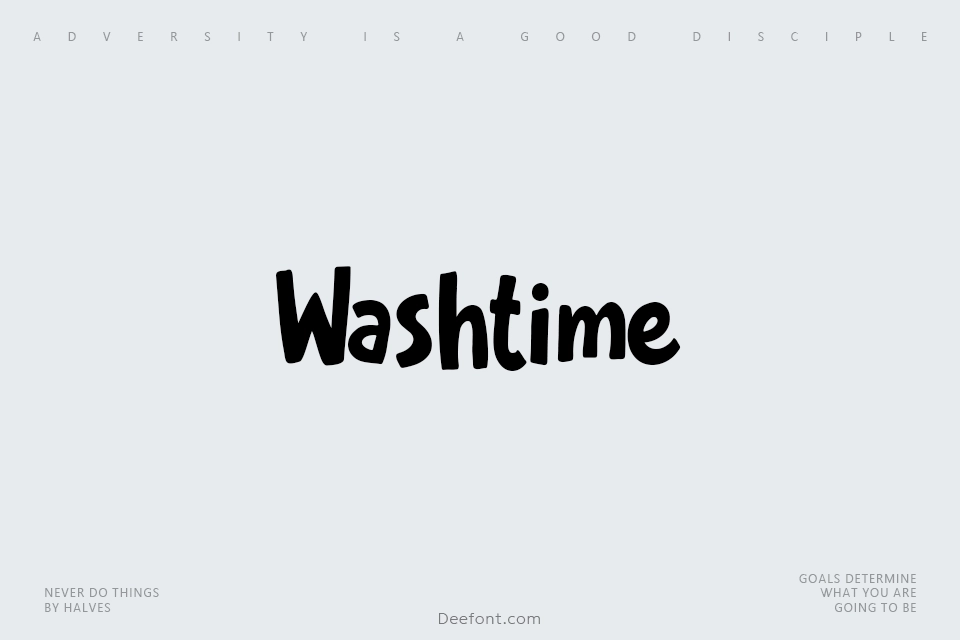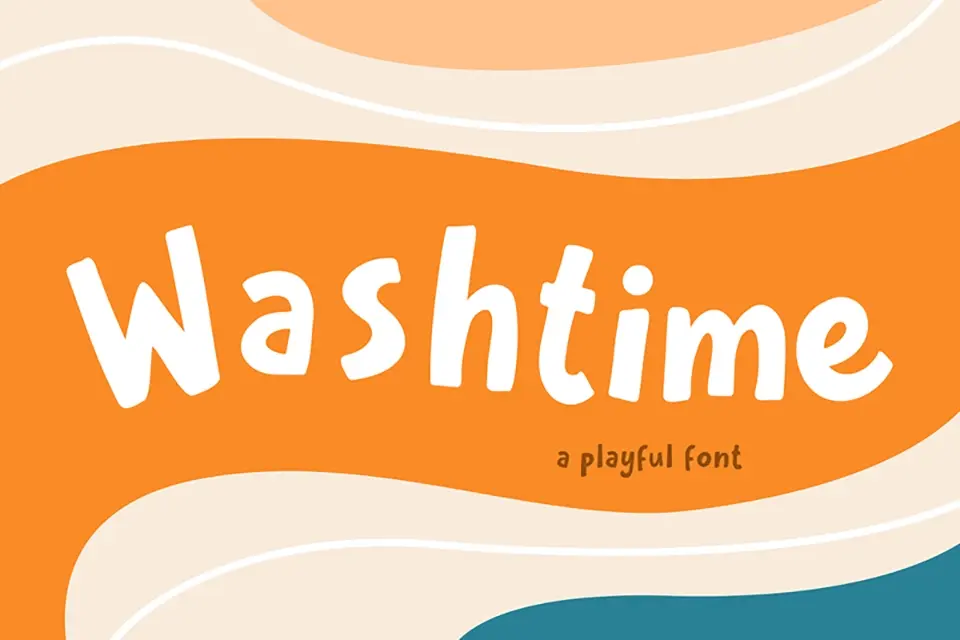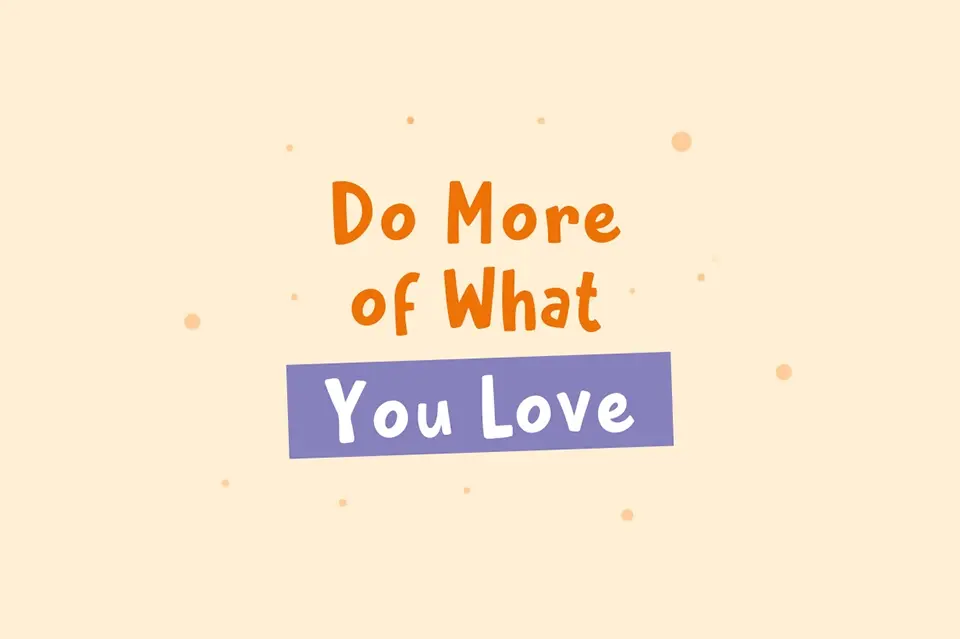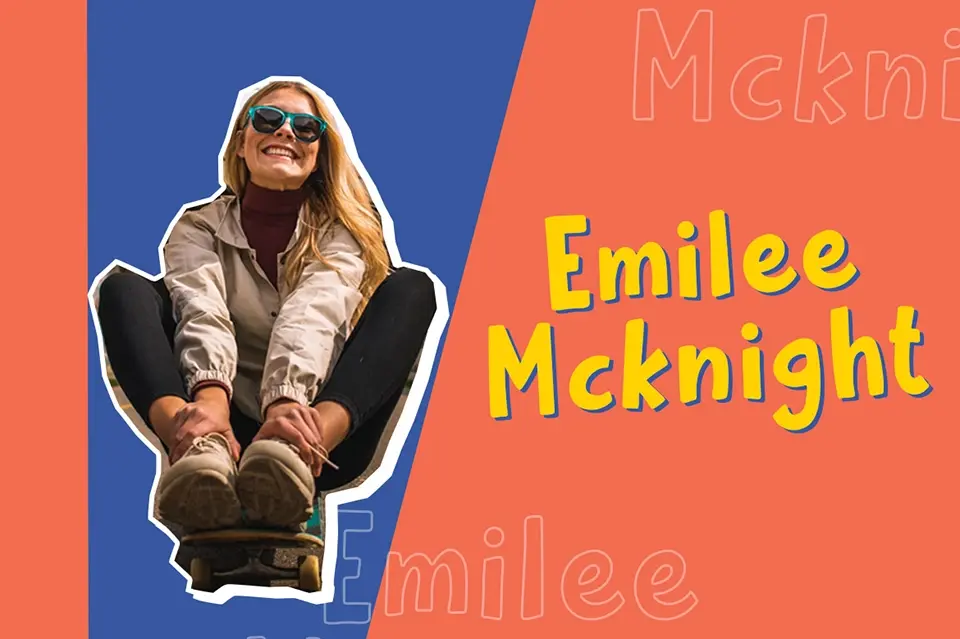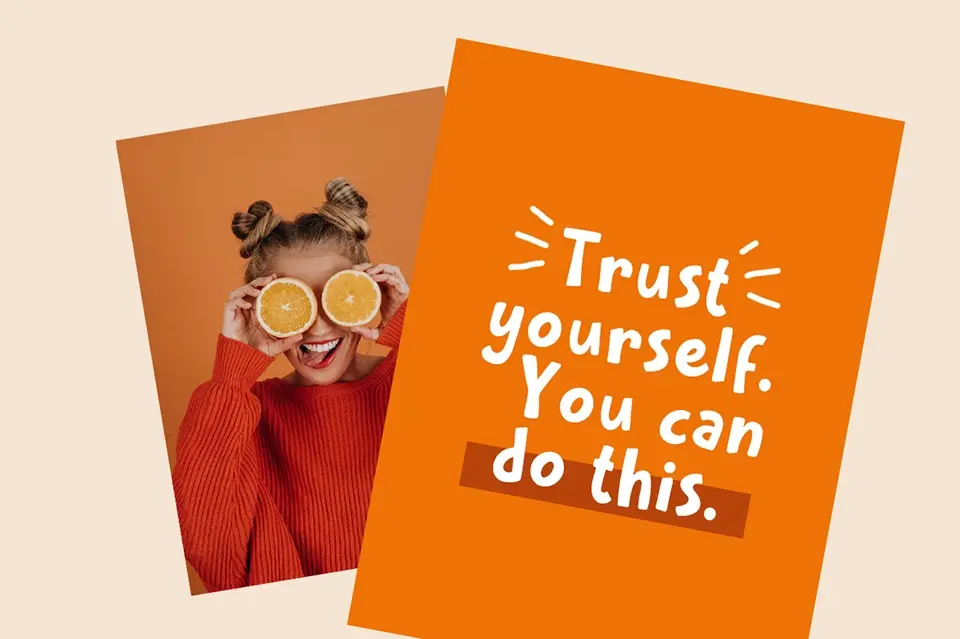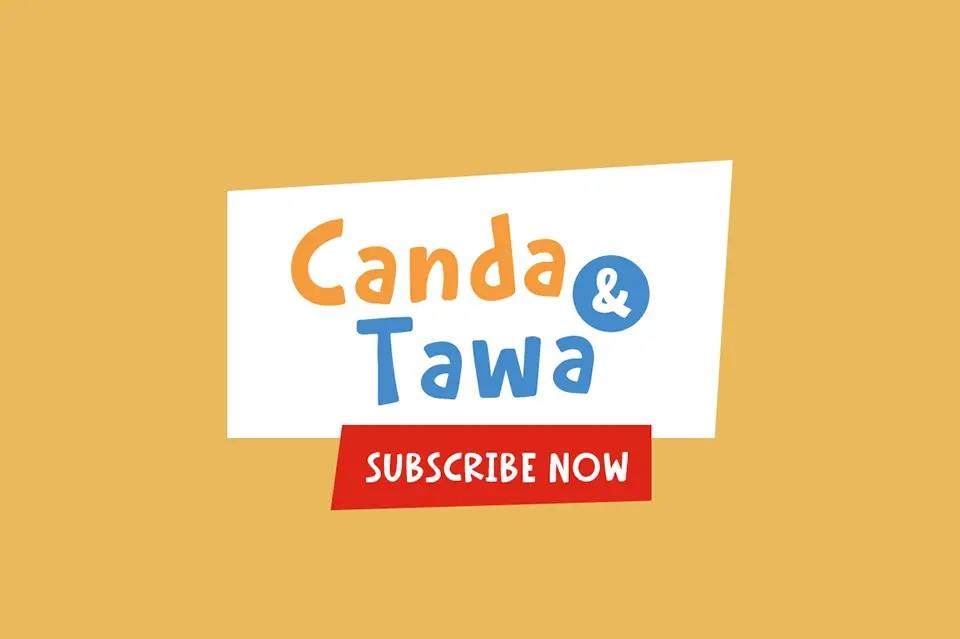
Washtime Font
Washtime is a playful display font designed by Weape Studio that brings cartoon character creation to life with its informal, casual, and modern aesthetic. The font features hand-drawn characteristics with uneven outline effects and slight letter tilts, creating a friendly and approachable handwritten vibe rather than mechanical precision. Ideal for animated projects, comic books, posters, magazine headlines, movie titles, fashion designs, and product packaging for items like juice, candy, and gum, this versatile typeface works well for both children and adult audiences.